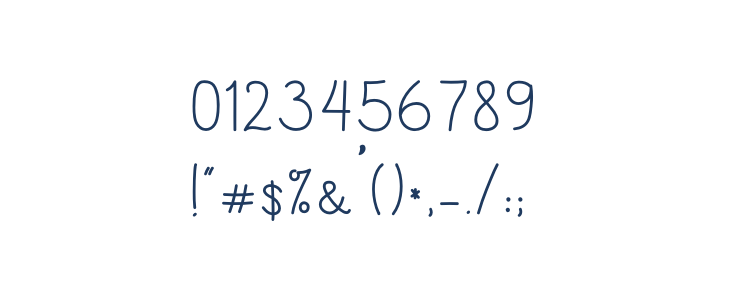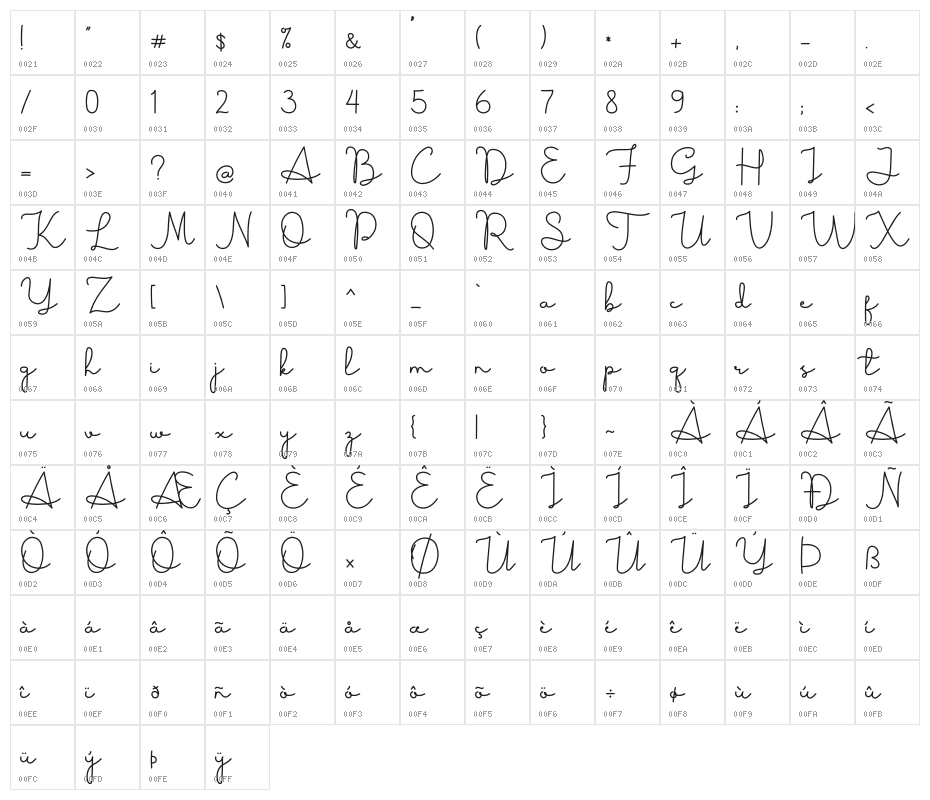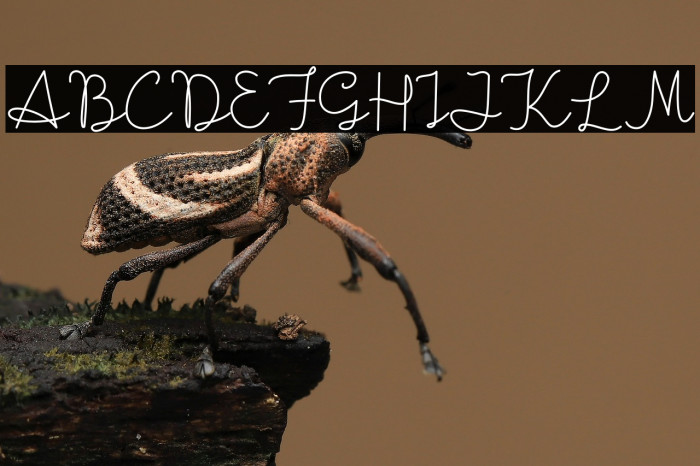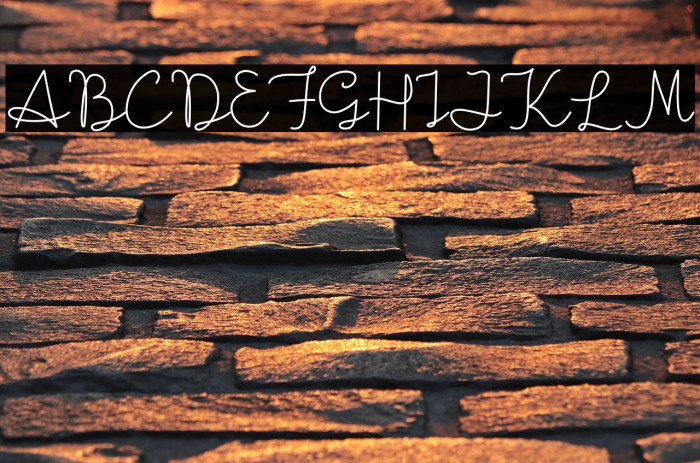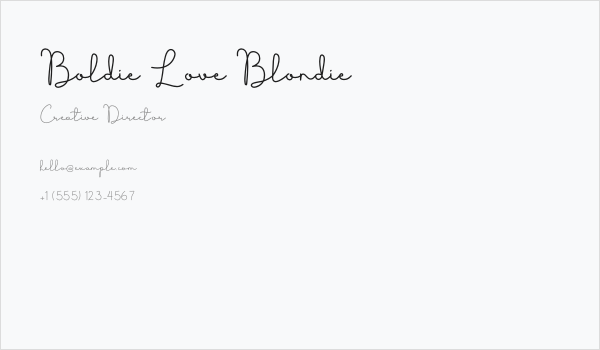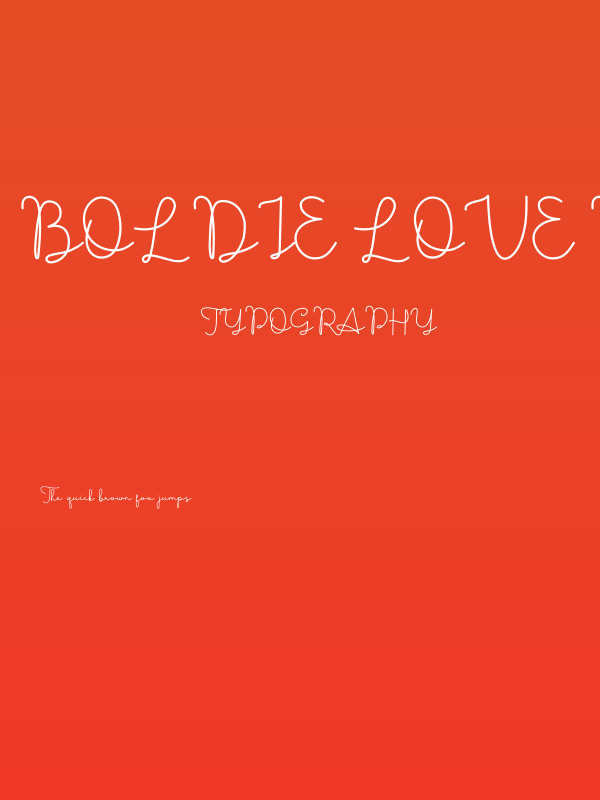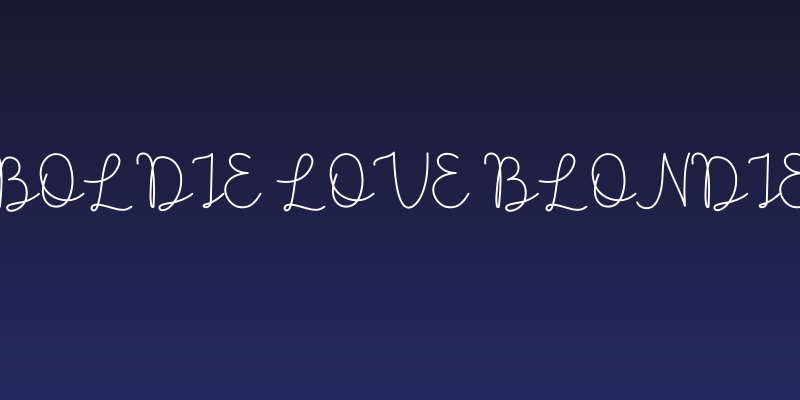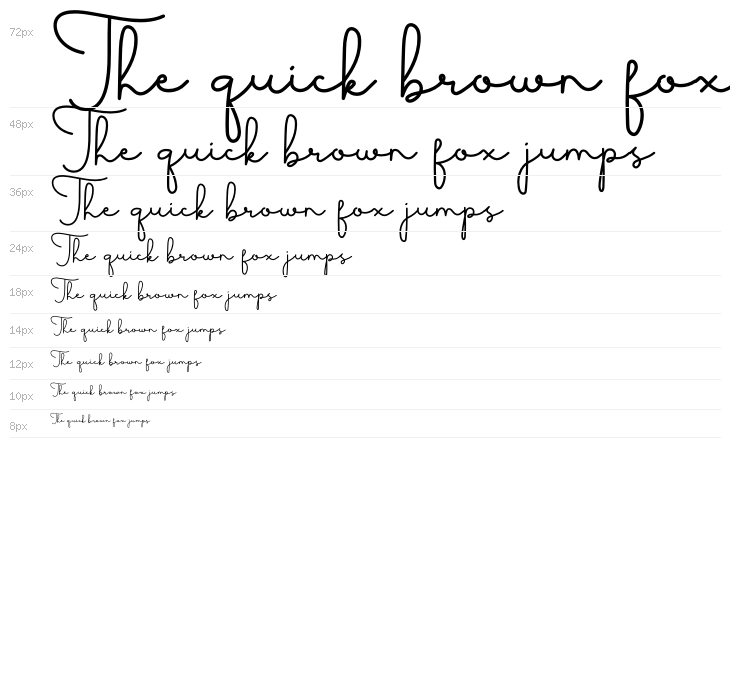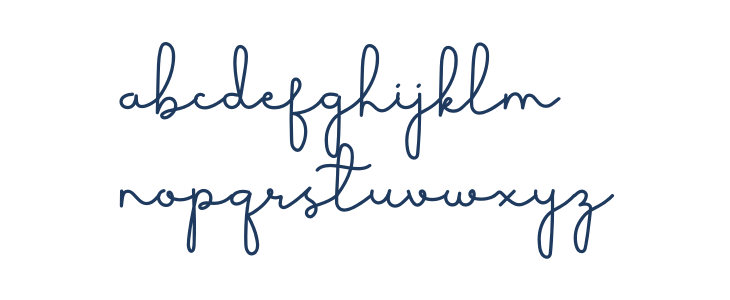
Boldie Love Blondie Font
Boldie Love Blondie Description
This font features a playful and whimsical script style, characterized by its flowing, interconnected letters. The uppercase letters exhibit a unique blend of cursive and print styles, offering a sense of elegance and creativity. The lowercase letters maintain a consistent cursive flow, enhancing the font's overall charm. Numbers and special characters are designed with the same playful touch, making them suitable for a variety of creative projects. The font's thin strokes and rounded edges contribute to its approachable and friendly appearance, making it ideal for designs that aim to convey warmth and personality.
| Proposed Projects | Ideal for wedding invitations, greeting cards, personal branding, and playful logos. |